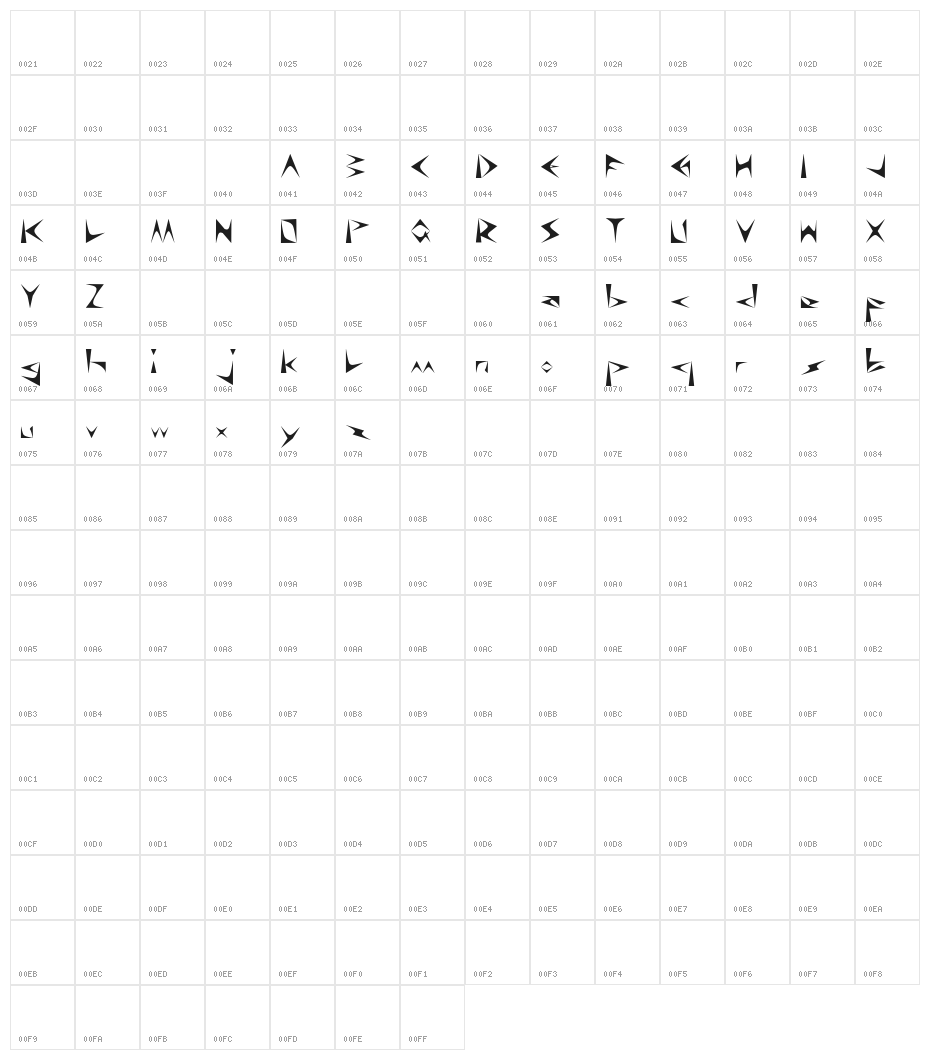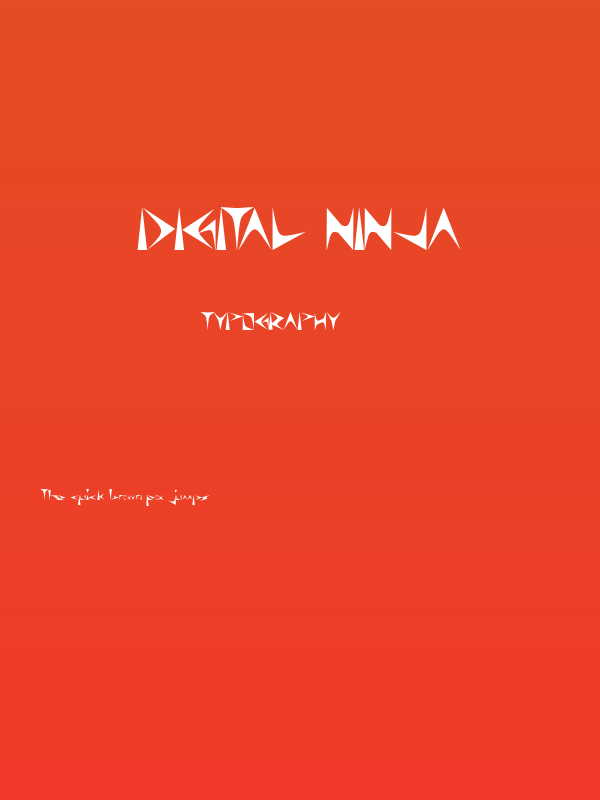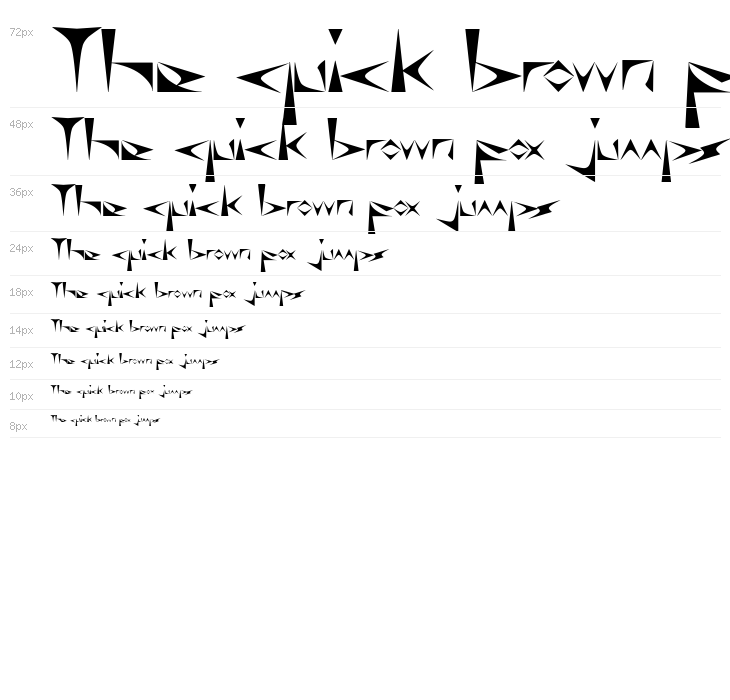
Digital Ninja Font
✎ Futuristic
| 整体风格 | Modern, Edgy |
| 推荐项目 | Ideal for video game titles, movie posters, branding for tech companies, or any project seeking a modern and edgy aesthetic. |